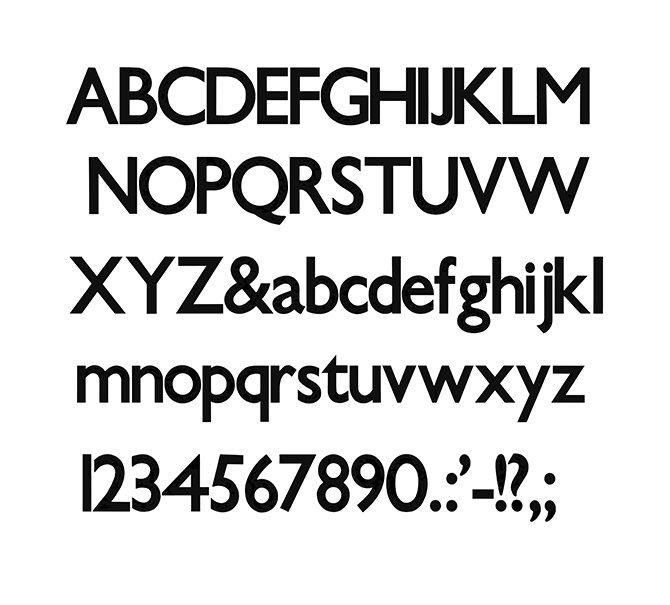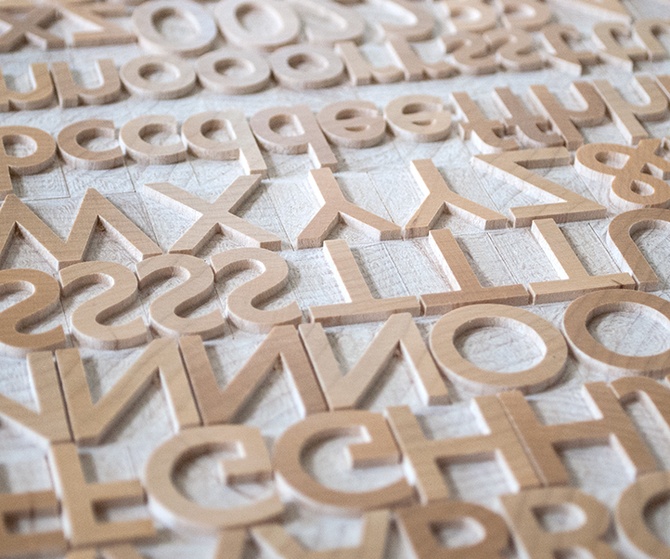
Designed by British sculptor, graphic artist, and type designer Eric Gill (1882-1940), Gill Sans has become a standard bearer for sans serif typefaces. Gill's guiding design force was ultimate legibility, and Gill Sans meets that standard beautifully.
The patterns Virgin Wood Type uses to make the Gill Sans family were supplied to American Wood Type by Stephenson Blake in England.